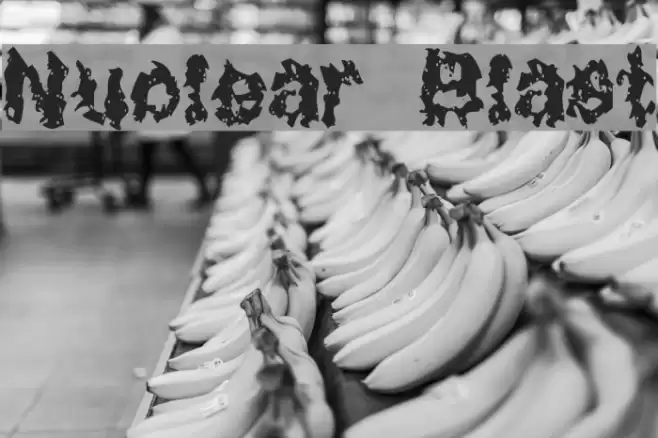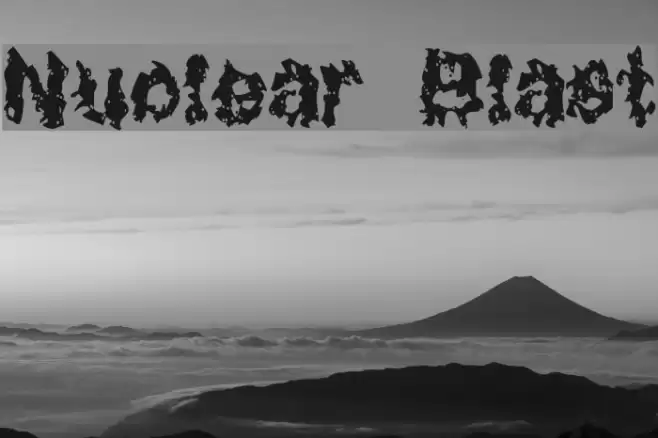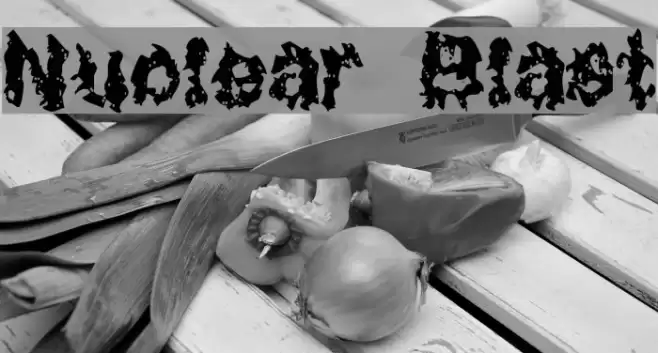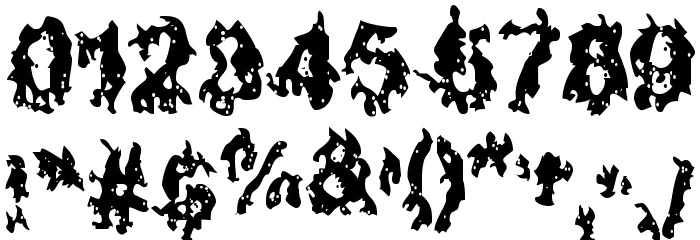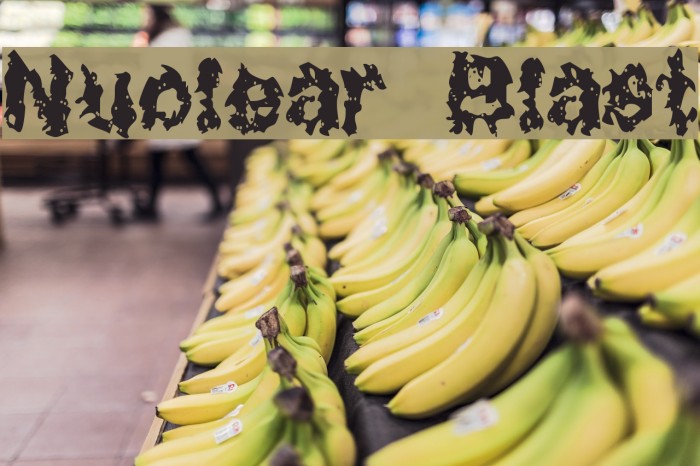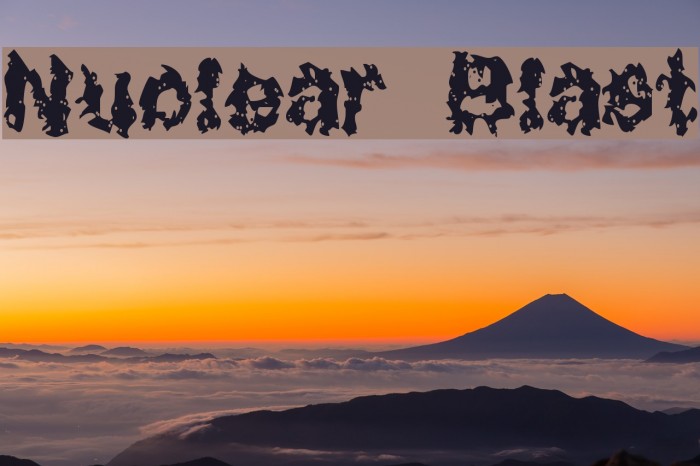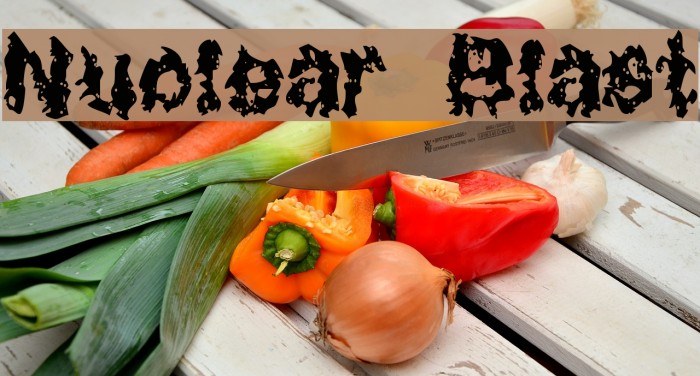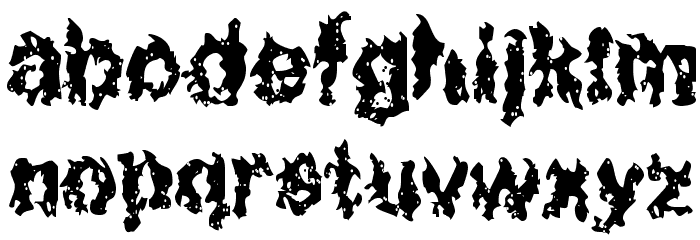
Nuclear Blast Font
Nuclear Blast Description
This font features a highly distressed and chaotic design, reminiscent of an explosive or decaying effect. Each character appears as if it has been eroded or blasted, with irregular edges and a rough texture. The bold and heavy strokes create a dramatic and intense visual impact, making it ideal for attention-grabbing designs. The font maintains legibility despite its intricate details, offering a unique blend of readability and artistic flair. Its unconventional style is perfect for projects that require a strong, edgy aesthetic.
A distressed, explosive font with bold, chaotic characters from Uncategorized fonts.
- Proposed Projects: Ideal for horror-themed posters, album covers, video game titles, or any project needing a dramatic, edgy look.